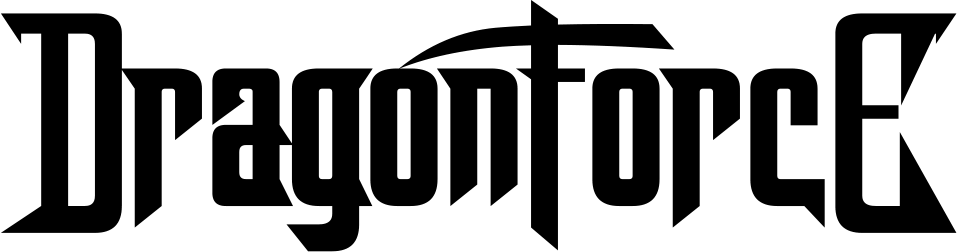
DragonForce Font
Designed byHolitter Studios
DragonForce is more than perfect for any heavy metal branding designs, movie posters, flyers, etc. This epic font has a raw look and can make your brand names or any other retro or vintage design look majestic.